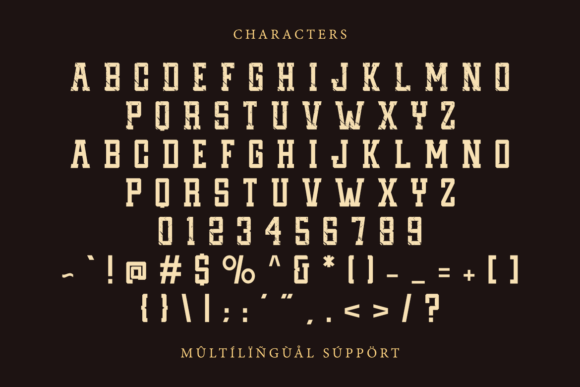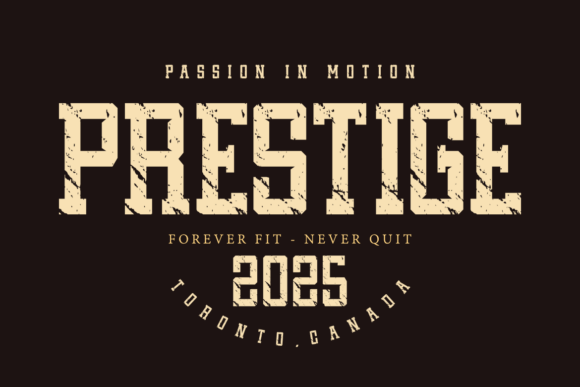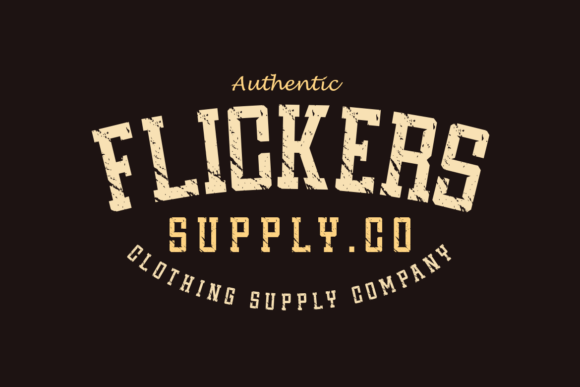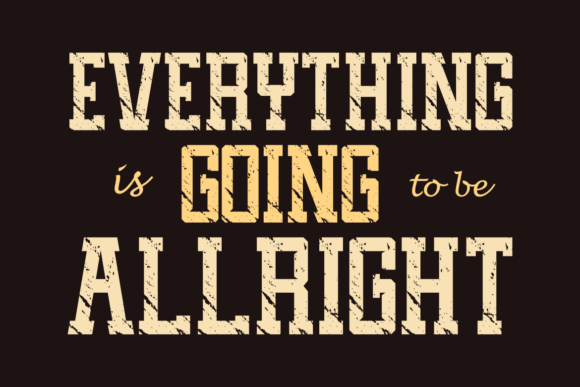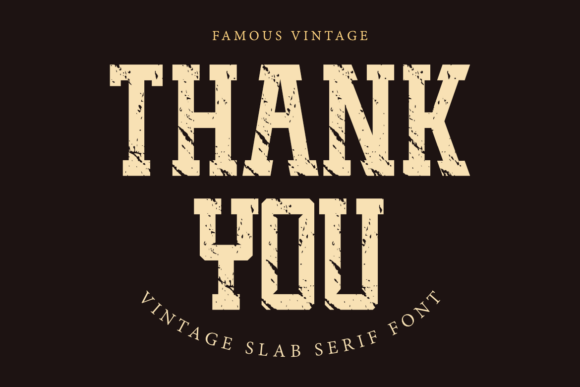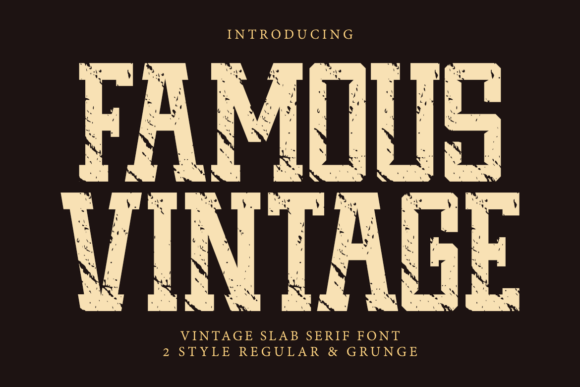
Famous Vintage Font: Elevate Your Designs with a Rugged, Grunge Aesthetic
Are you looking for a font that adds a touch of rustic charm and adventure to your designs? Look no further than the Famous Vintage font, a stunning vintage slab serif font that brings a unique blend of rugged grunge textures and bold geometric letterforms to the table. Perfect for designers and crafters seeking to create eye-catching posters, packaging, apparel designs, and branding projects, Famous Vintage is the perfect addition to your creative toolbox.
The Characteristics of Famous Vintage Font
Famous Vintage is a carefully crafted font that embodies the essence of a distressed, vintage aesthetic. Its slab serif design gives it a sturdy, rugged feel, while the grunge textures add a layer of worn, weathered charm. The bold geometric letterforms ensure that your text stands out, making it perfect for headlines, titles, and logos. Whether you’re working on a design project that requires a bold statement or a subtle hint of nostalgia, Famous Vintage has got you covered.
One of the key benefits of the Famous Vintage font is its versatility. Its unique blend of ruggedness and sophistication makes it suitable for a wide range of design projects, including:
• Posters: Create eye-catching posters that grab attention with Famous Vintage’s bold, distressed aesthetic.
• Packaging: Add a touch of rustic charm to your product packaging and make it stand out on store shelves.
• Apparel designs: Give your t-shirts, hoodies, and other apparel designs a unique, vintage vibe that sets them apart.
• Branding projects: Establish a strong brand identity with Famous Vintage’s distinctive, memorable aesthetic.
Why Choose Famous Vintage Font?
So why choose Famous Vintage over other fonts? Here are just a few reasons why designers and crafters love this font:
• Authentic vintage look: Famous Vintage boasts a genuinely distressed, vintage aesthetic that’s perfect for designers seeking to add a touch of nostalgia to their work.
• Rugged, grunge textures: The font’s grunge textures give it a worn, weathered feel that’s perfect for creating designs that stand out.
• Bold geometric letterforms: The bold, geometric letterforms ensure that your text is always legible and eye-catching.
Tips for Using Famous Vintage Font
To get the most out of Famous Vintage, here are a few tips to keep in mind:
• Experiment with different colors: Famous Vintage looks great in a range of colors, from earthy tones to bold brights.
• Play with texture: Combine Famous Vintage with other textures and patterns to create unique, eye-catching designs.
• Use it sparingly: While Famous Vintage is a versatile font, it can be overwhelming if overused. Use it sparingly to create maximum impact.